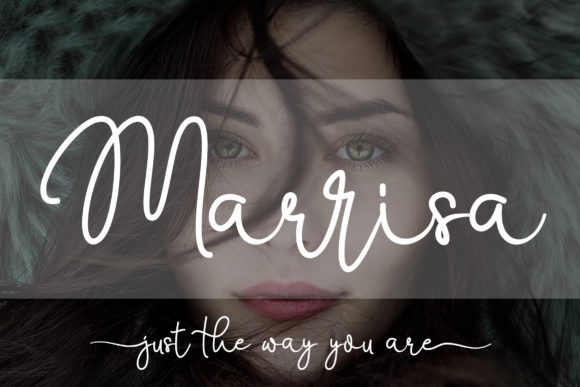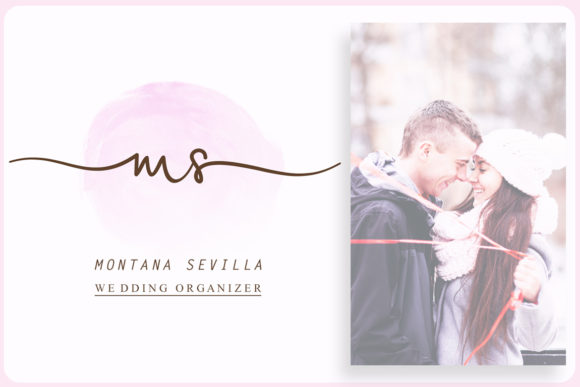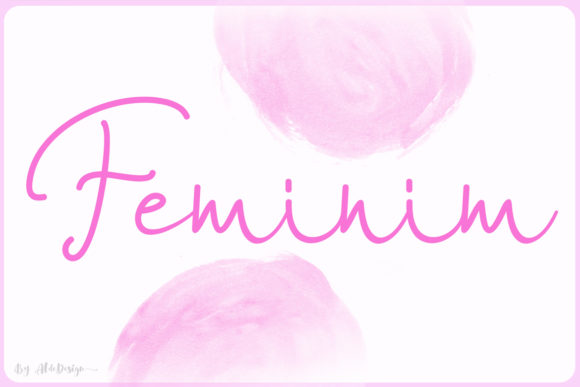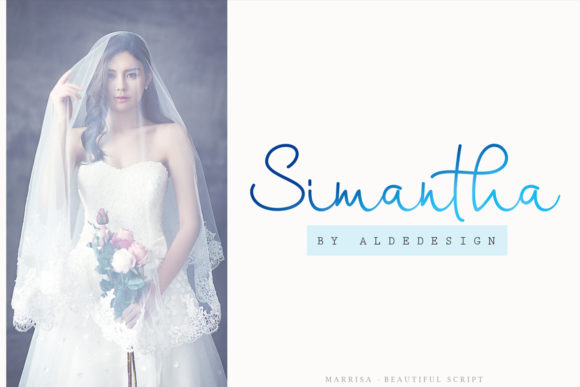
Marrisa Script Font
About Marrisa Script Font
Marrisa is a stunning script font that will add a unique and authentic spark to any creative project! Add this lovely freebie to your creations and take your designs to the next level!